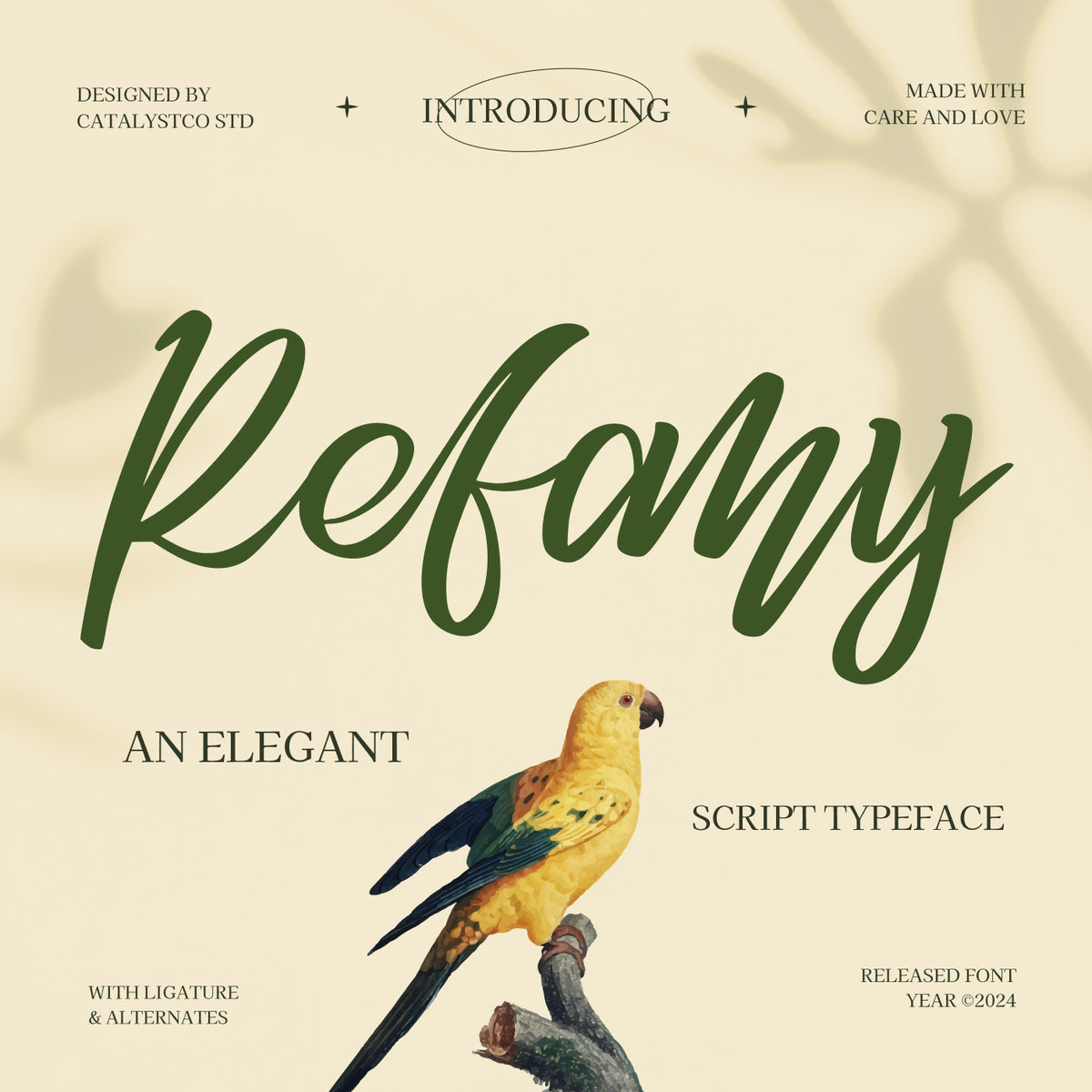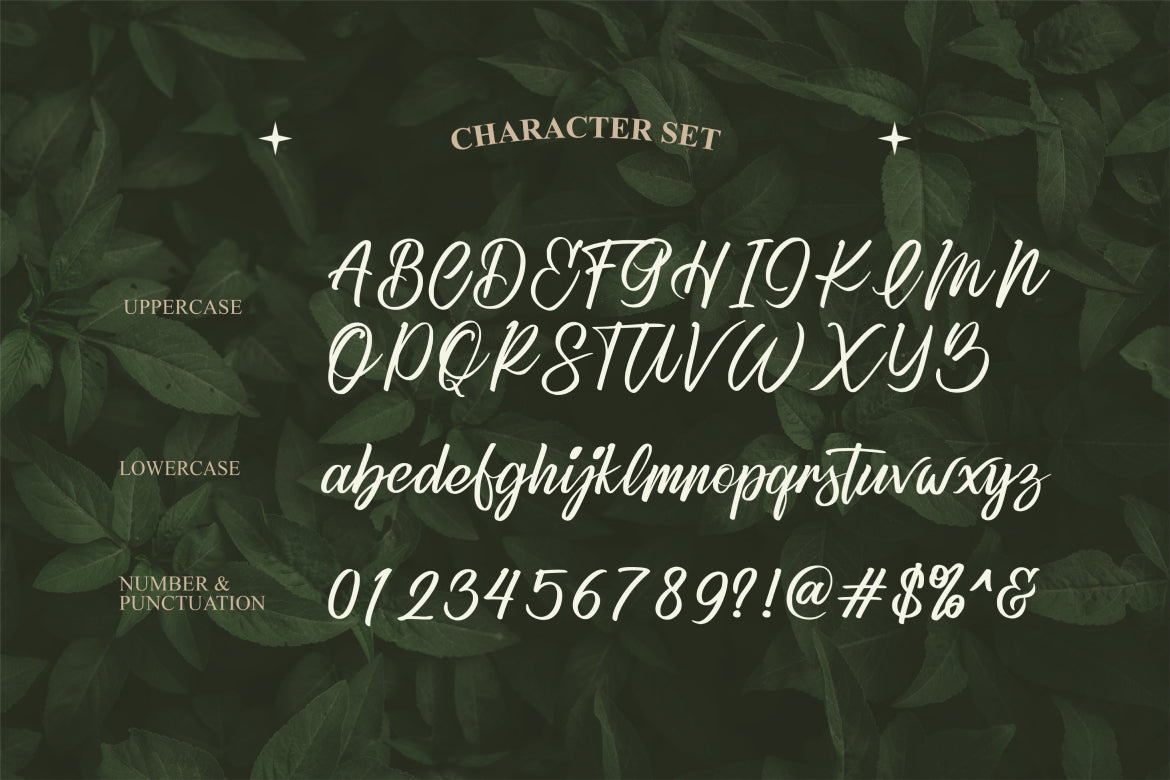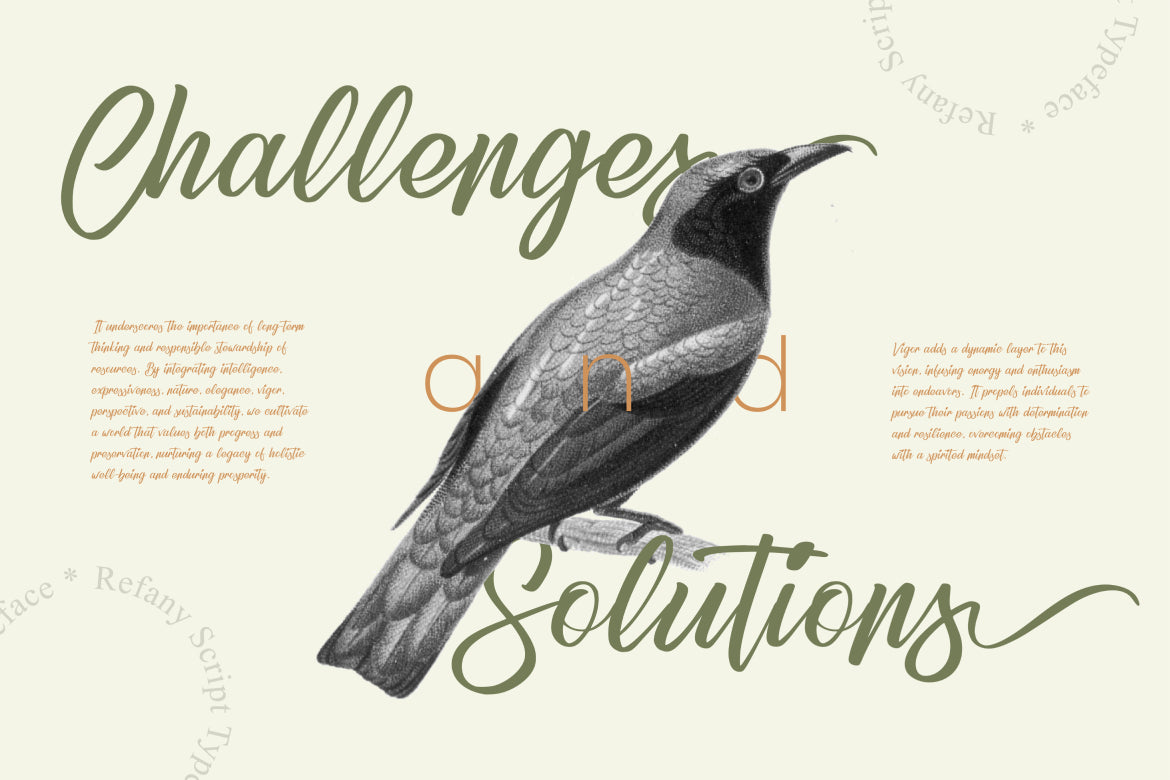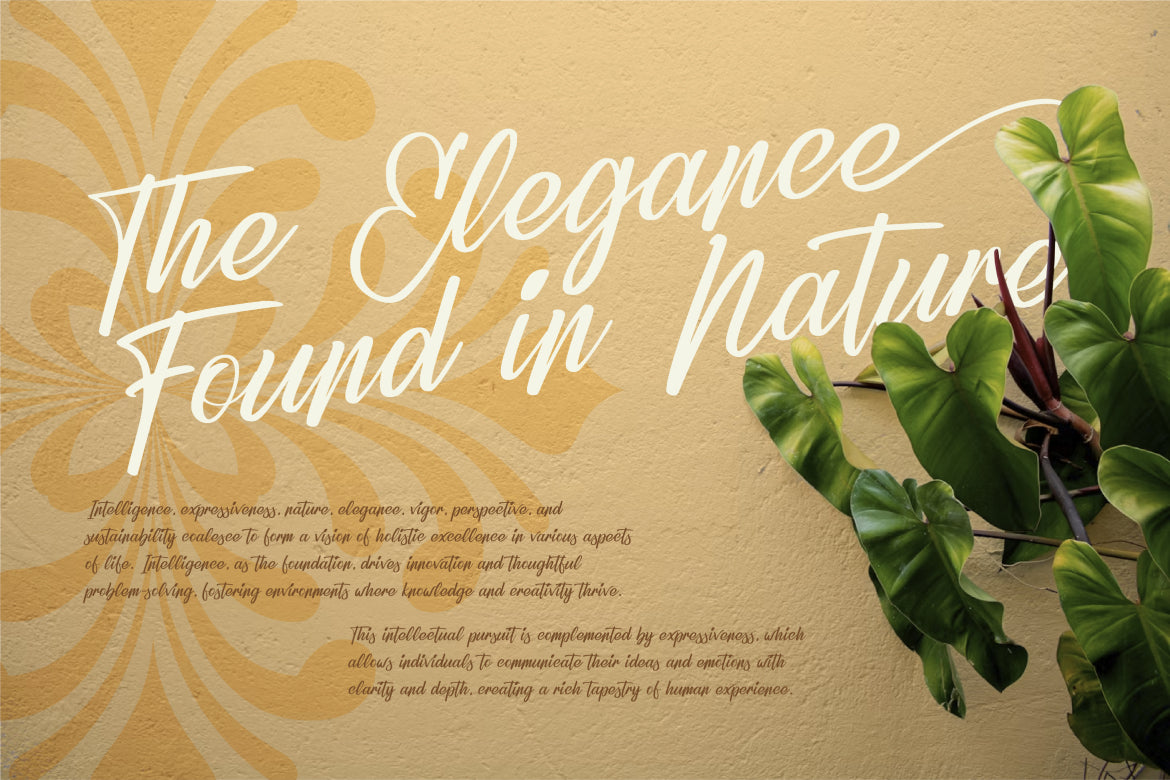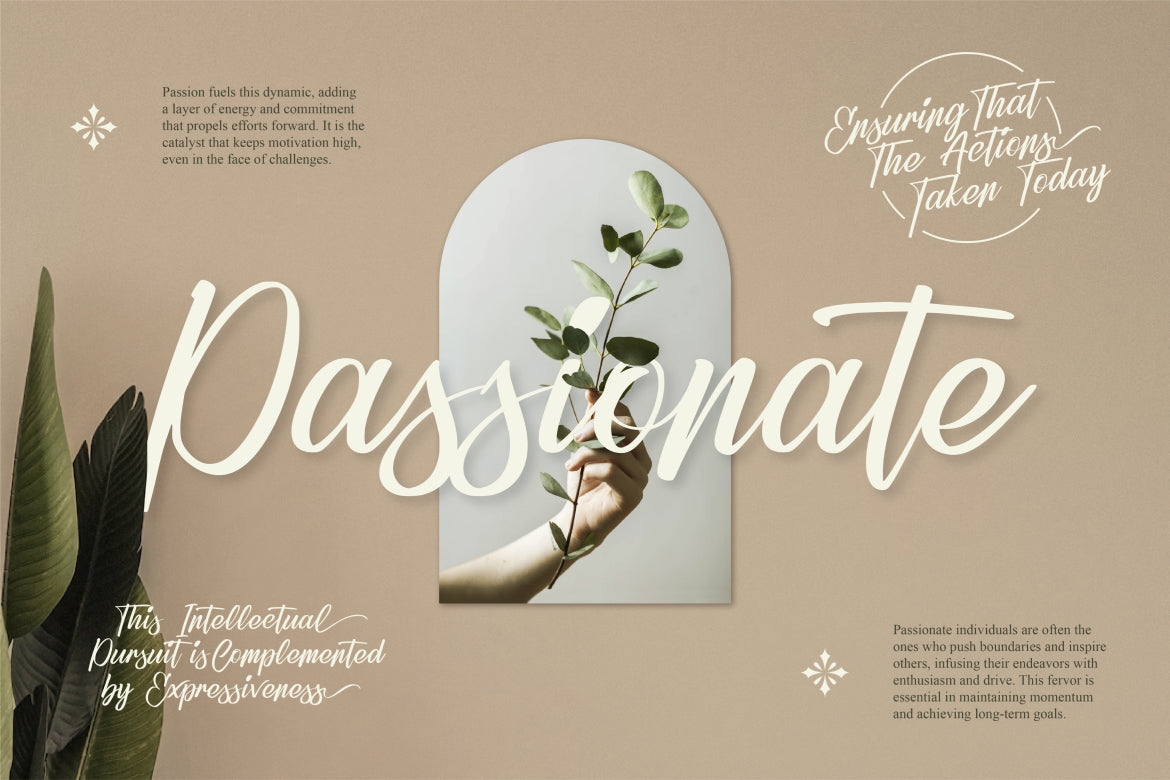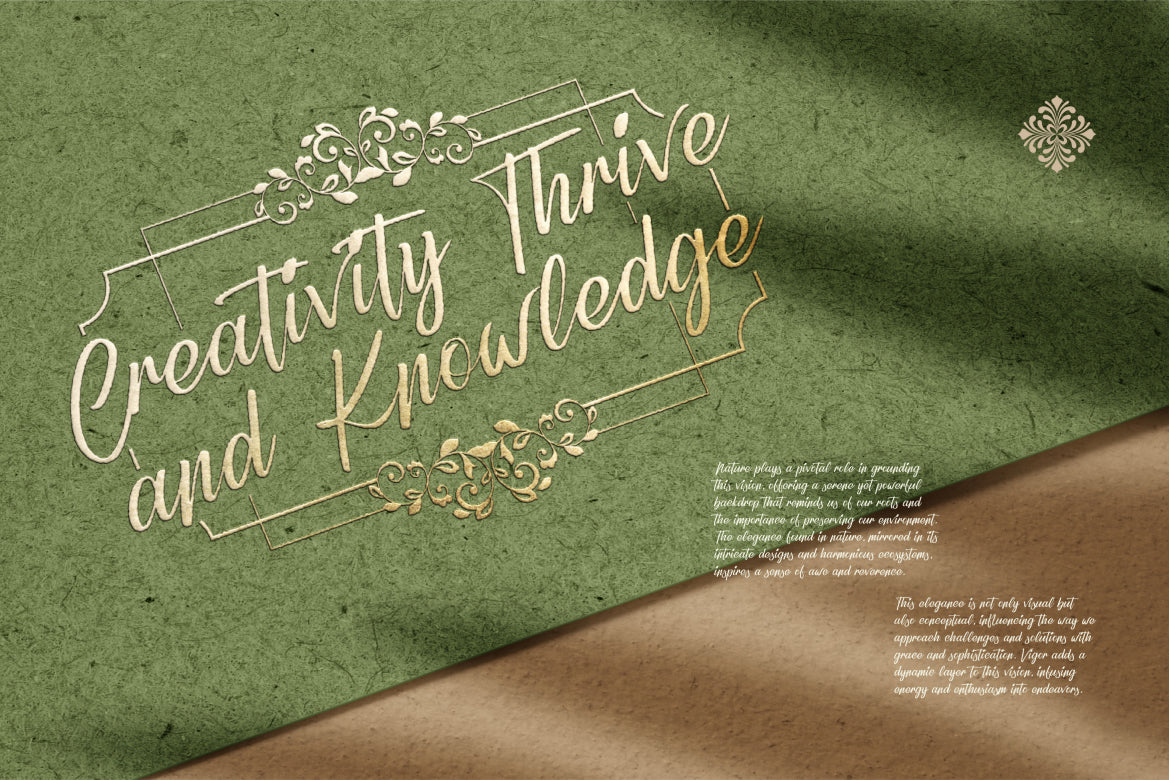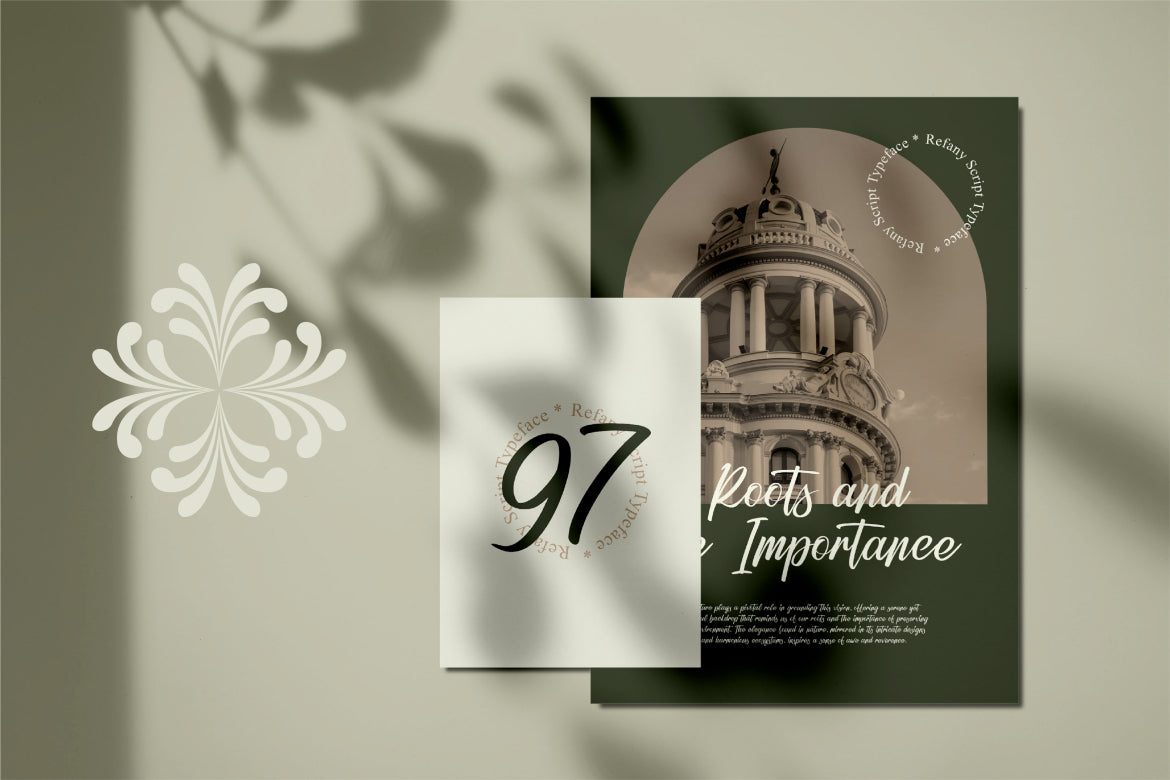
Refany Elegant Script Typeface Font
Refany is an expressive handwritten script font that combines fluid brush lettering with an elegant, artistic character. Its letterforms feature thick, flowing strokes, elongated curves, and distinctive connections that create a natural sense of movement across each word. The font has a loose, hand-drawn construction, with sweeping ascenders, extended descenders, and generous loops that give the lettering a signature-like appearance.
Relevance and Use Case is perfect for creative projects that require expressive handwriting, a personal touch, and an elegant visual identity. Its flowing connections, sweeping curves, and customizable letterforms make it suitable for fashion and beauty branding, boutique logos, wedding invitations, greeting cards, product packaging, editorial titles, lifestyle campaigns, signature marks, and promotional graphics.
Refany is a handwritten script typeface featuring thick brush strokes, elongated curves, and sweeping ascenders and descenders. It includes uppercase and lowercase letters, ligatures, alternates, numerals, and punctuation in TTF, OTF, and WOFF formats.